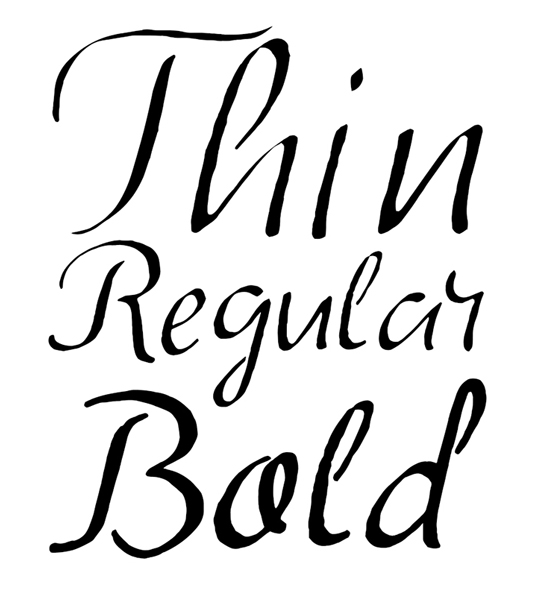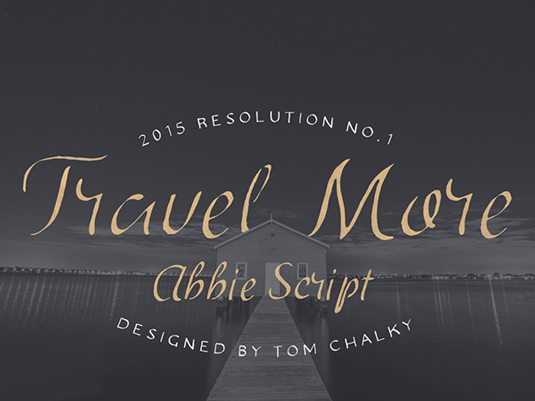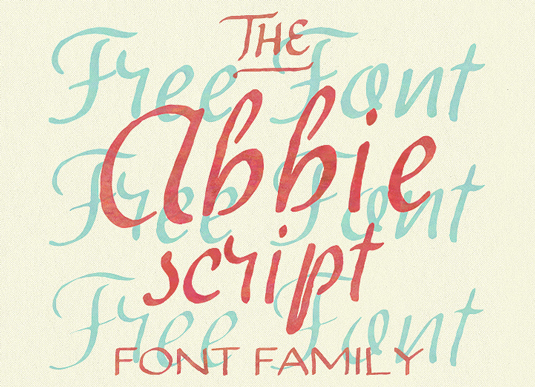
Font of the day: Abbie Script
Abbie Script by Tom Chalky
Today's typeface of choice is Abbie Script, by designer Tom Chalky. "Abbie Script is a beautiful script font that has been hand drawn, scanned, and digitized for you to enjoy – for free!" he comments.